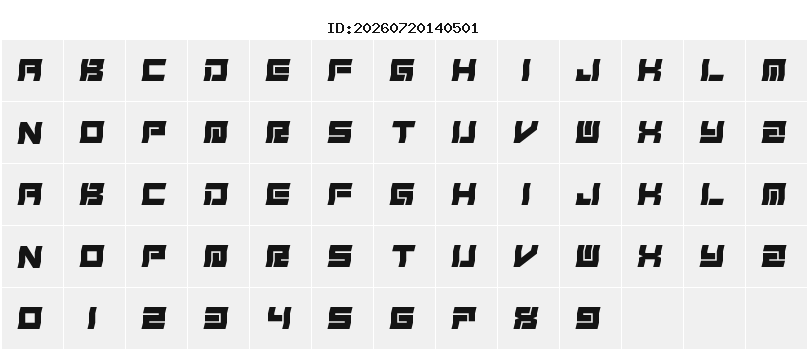
• Font Name: Freudian Slit
About Freudian Slit.otf
Freudian Slit.otf is a modern, elegant sans-serif font designed for ultimate readability and visual harmony. Perfect for branding, headlines, web design, and print materials.